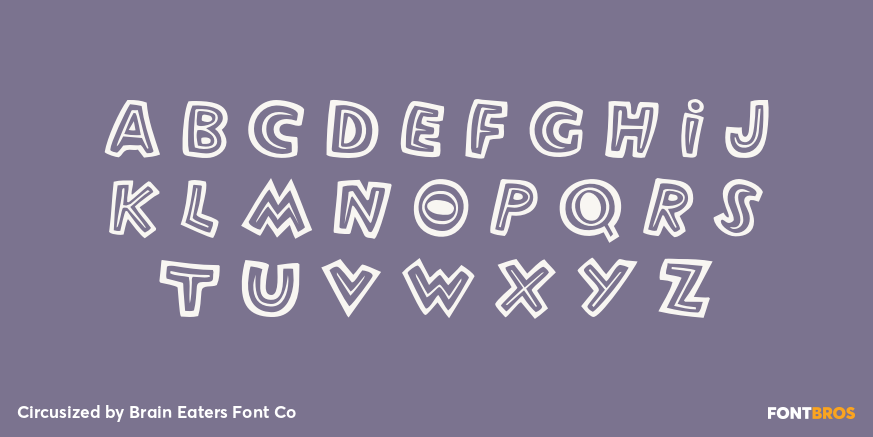
Circusized
Font Family by Brain Eaters Font Co
Circusized is a playful display font family with a bold, showman spirit. Its decorative letterforms lean into a fun, wacky, special-effect look that feels right at home in attention-grabbing headlines and nostalgic, spectacle-inspired layouts.
This family includes 3 styles—Regular, Solid, and Outline—giving you a few different ways to build lively type treatments with dimension and contrast. Use it for posters, signage, party pieces, themed branding, packaging, social graphics, or any display work that calls for a spirited, offbeat voice.
Created by Brain Eaters Font Co, this is a characterful choice for designers who want something animated, theatrical, and easy to turn into a focal point.